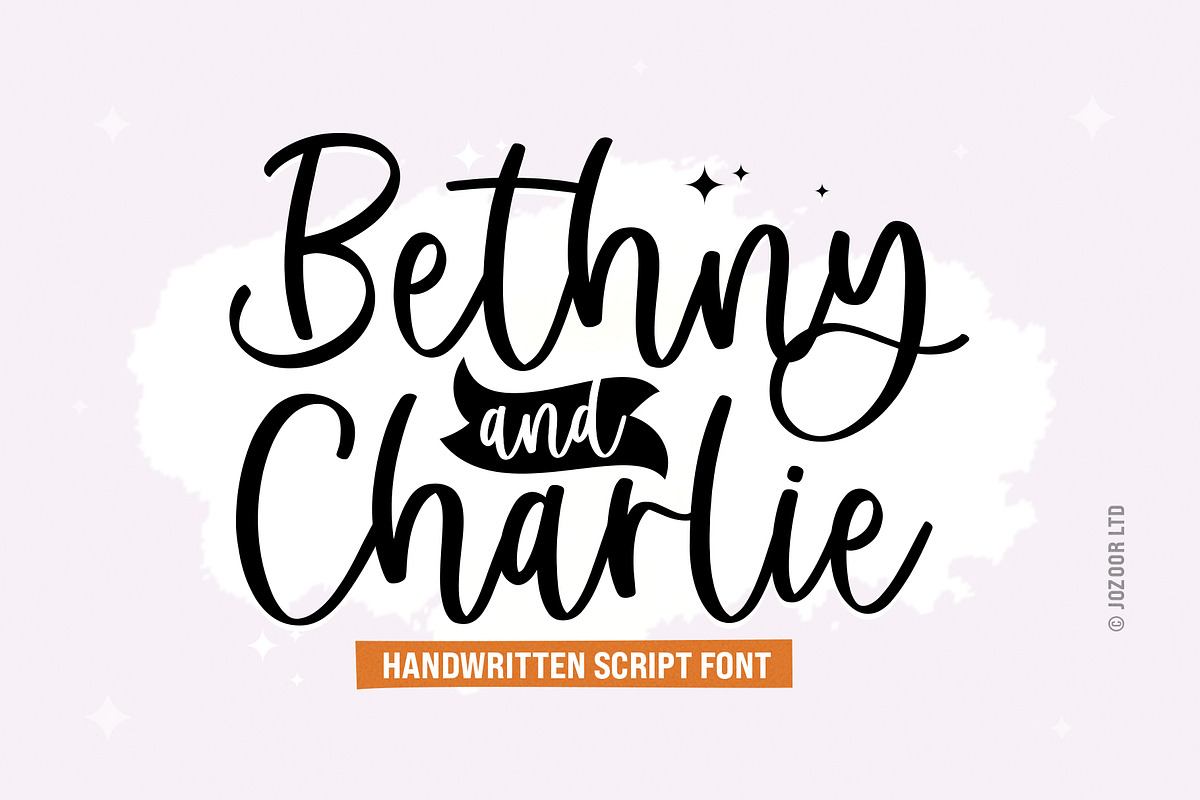
Bethny Charlie - Modern Script Font Free Download is a stylish, flowing typeface that brings elegance and charm to any design. With its smooth curves and natural handwritten feel, this script font is perfect for wedding invitations, personal branding, social media content, beauty product packaging, and elegant logos. It captures a modern, feminine vibe that’s both trendy and timeless.
Every stroke in Bethny Charlie feels intentional, giving your text a personal and polished look. Its graceful appearance makes it ideal for messages that need a soft, romantic, or refined touch. Whether you're designing quotes or branding a boutique, this font delivers sophistication with ease.